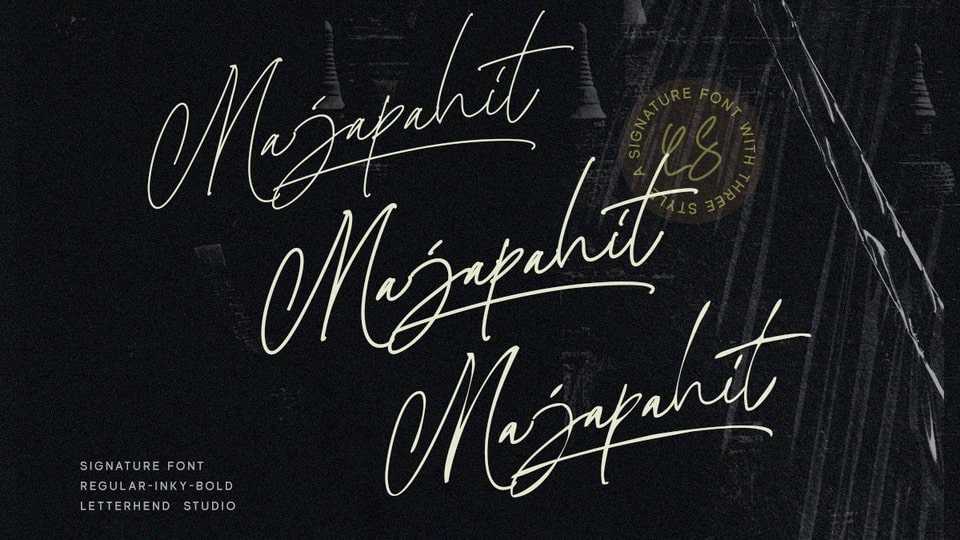
Download Majapahit font, a beautiful signature script typeface based on manual handwriting. Majapahit typeface is perfect for logos and other various formal forms such as invitations, magazines, greeting/wedding cards, packaging, fashion or any type of advertising purpose.